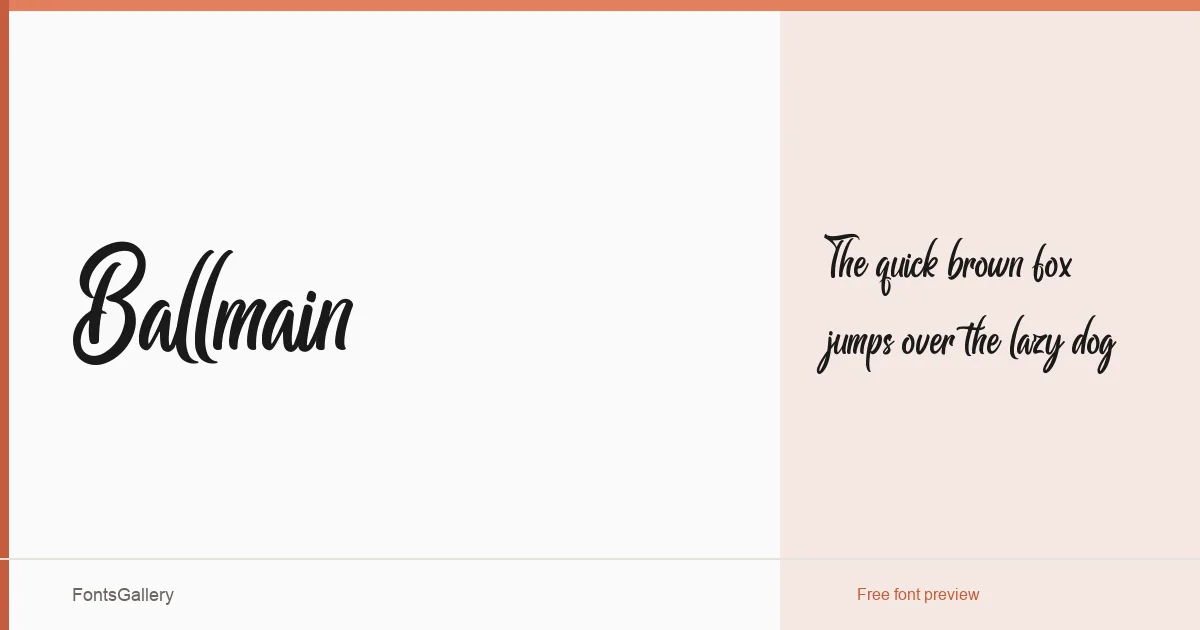
About Ballmain Font
Ballmain is a script typeface designed and published by Aveni Yuanita, crafted to evoke elegance, romance, and timeless classic charm. Its flowing letterforms make it a distinctive choice for projects that call for a refined and graceful aesthetic. The result is a font that feels both sophisticated and warmly personal.
Ballmain features the sweeping, connected strokes characteristic of elegant script typefaces, lending each letterform a romantic and classic quality. The graceful curves and fluid rhythm of the characters create a sense of movement and refinement on the page. This combination of classic script tradition and elegant detailing gives Ballmain a timeless appeal.
Ballmain is ideally suited for logos, wedding stationery, invitation cards, branding materials, and greeting cards where an elegant and romantic tone is desired. Its expressive script character makes it especially well-suited for luxury and celebration-focused design projects. For a balanced typographic pairing, consider combining Ballmain with Aresink or the clean, neutral lines of Helvetica to create a harmonious contrast between script and sans-serif styles.